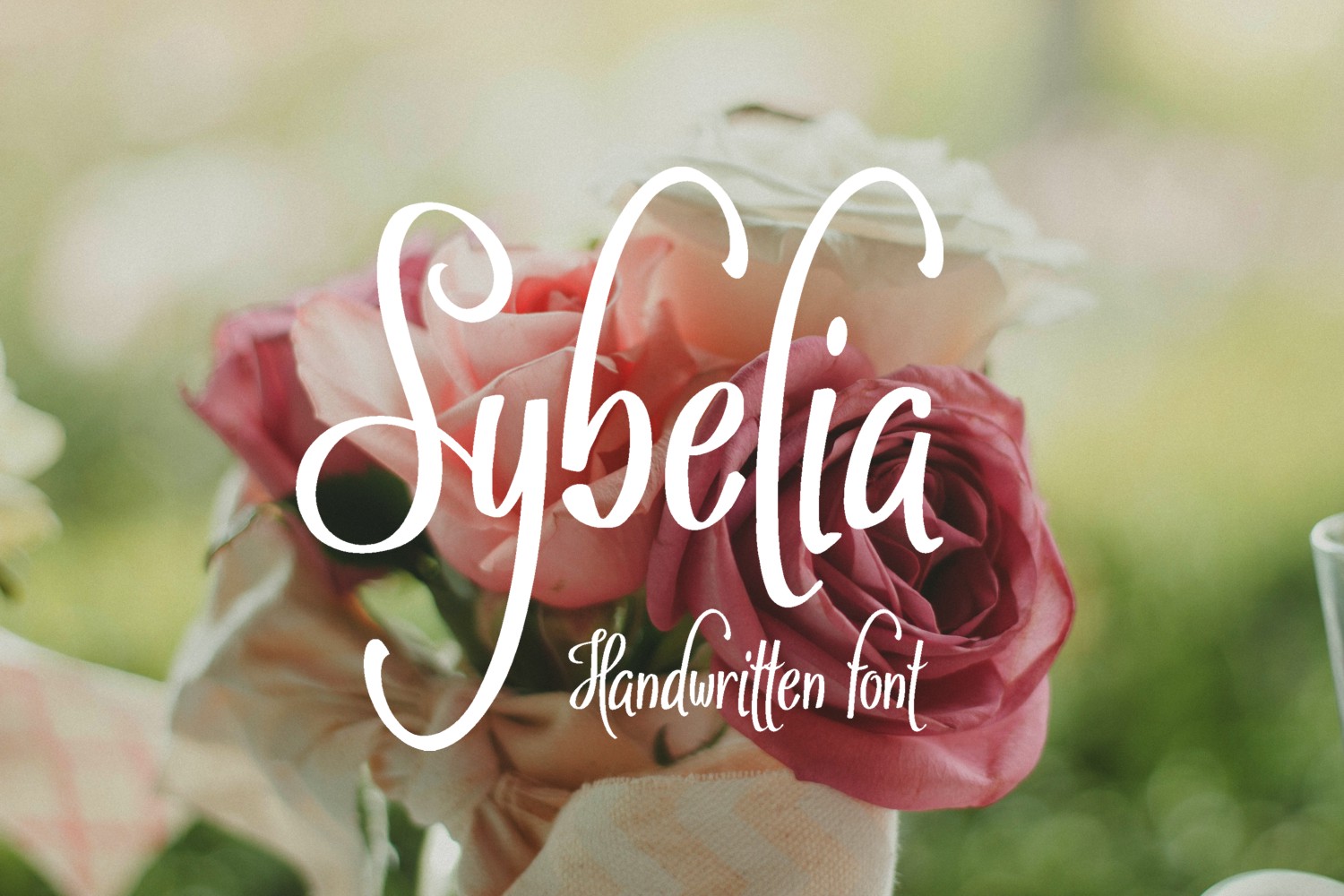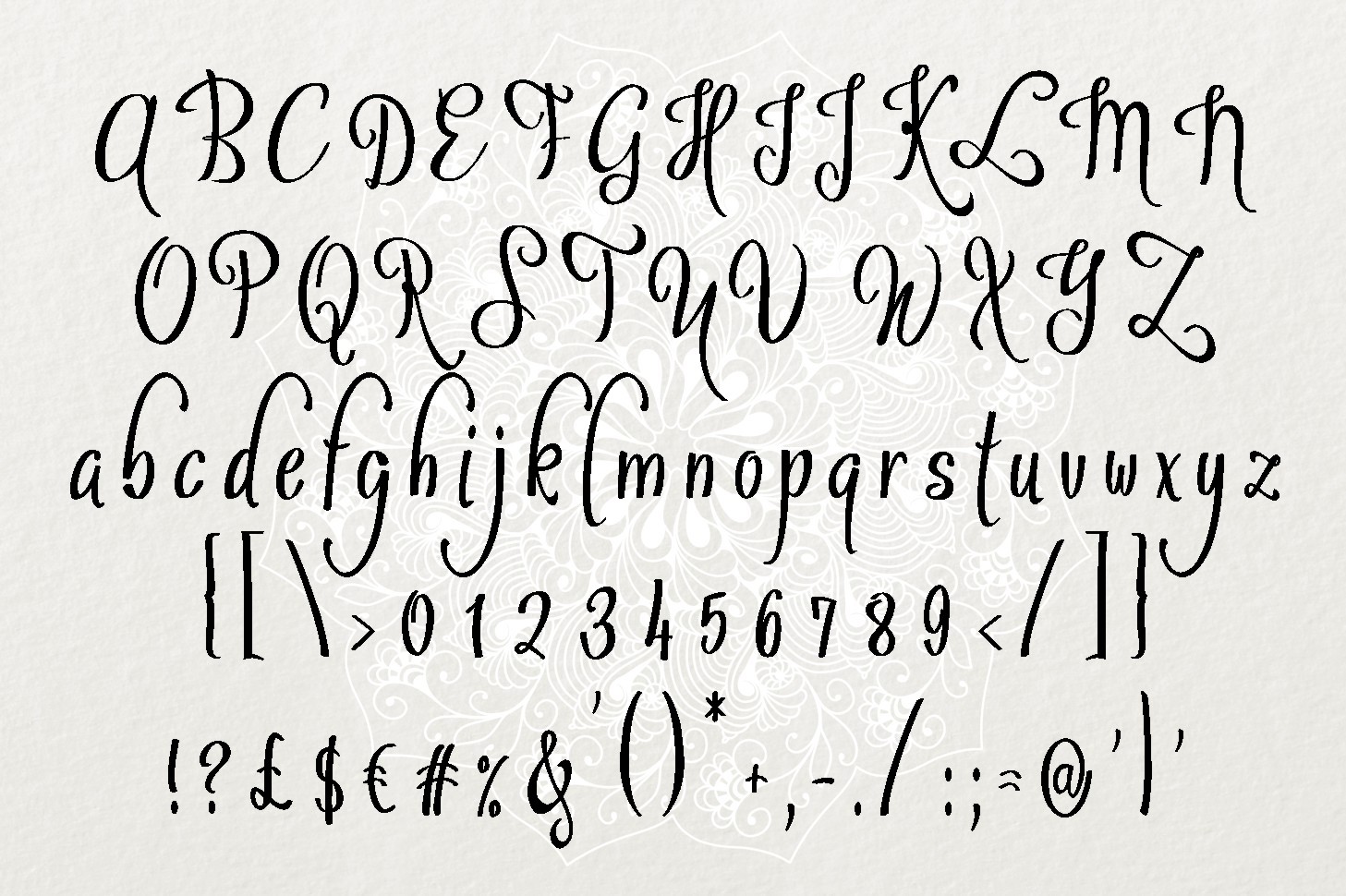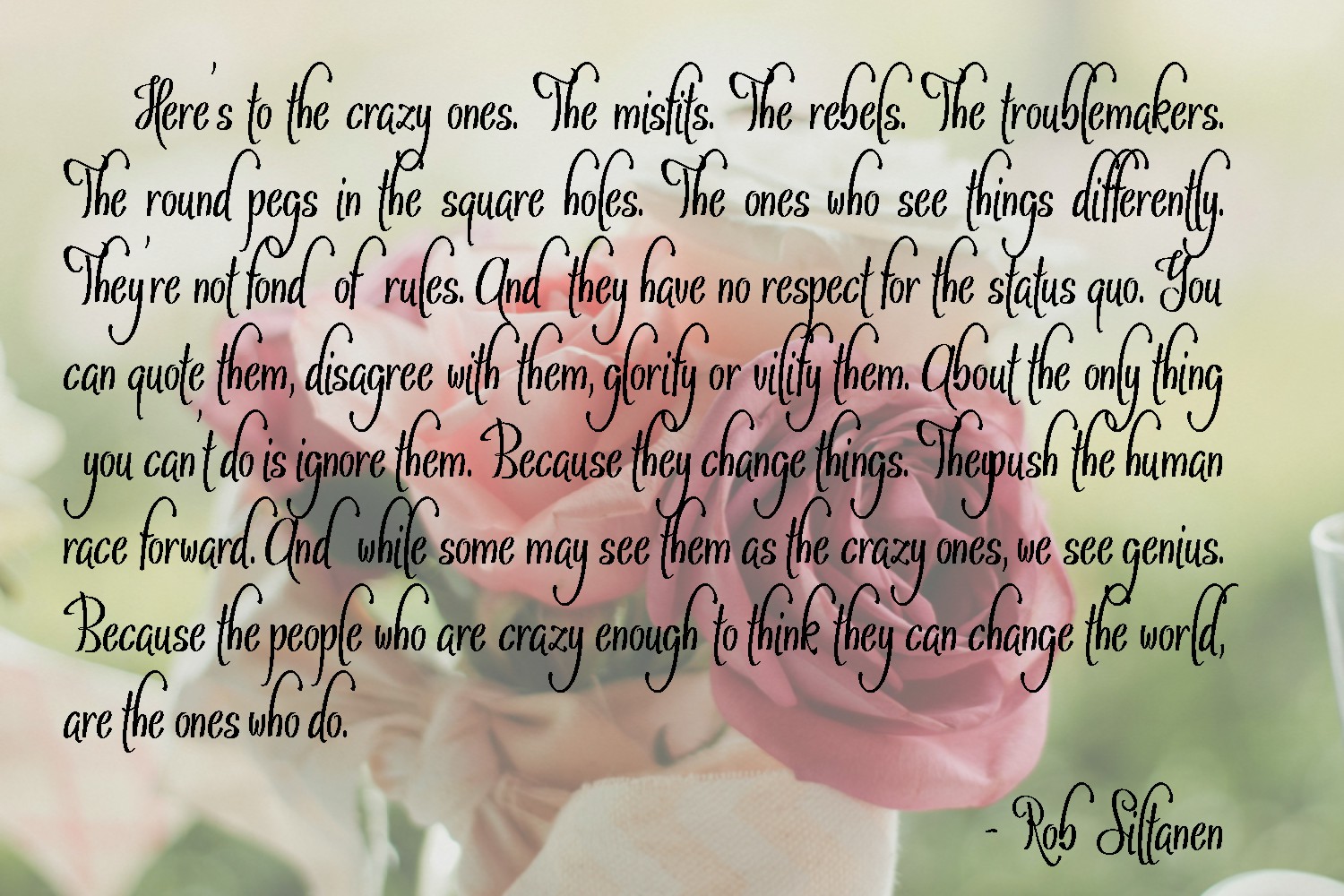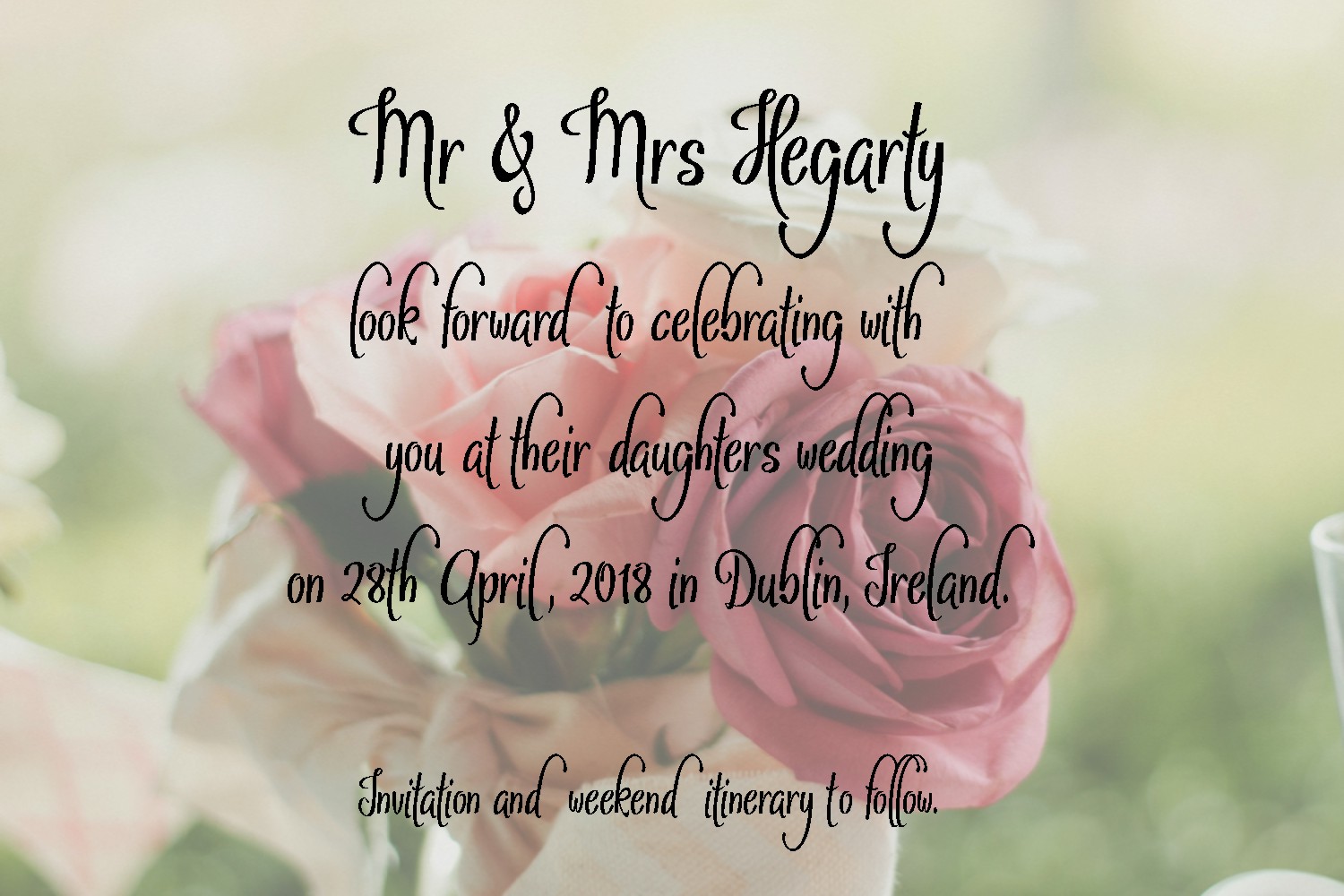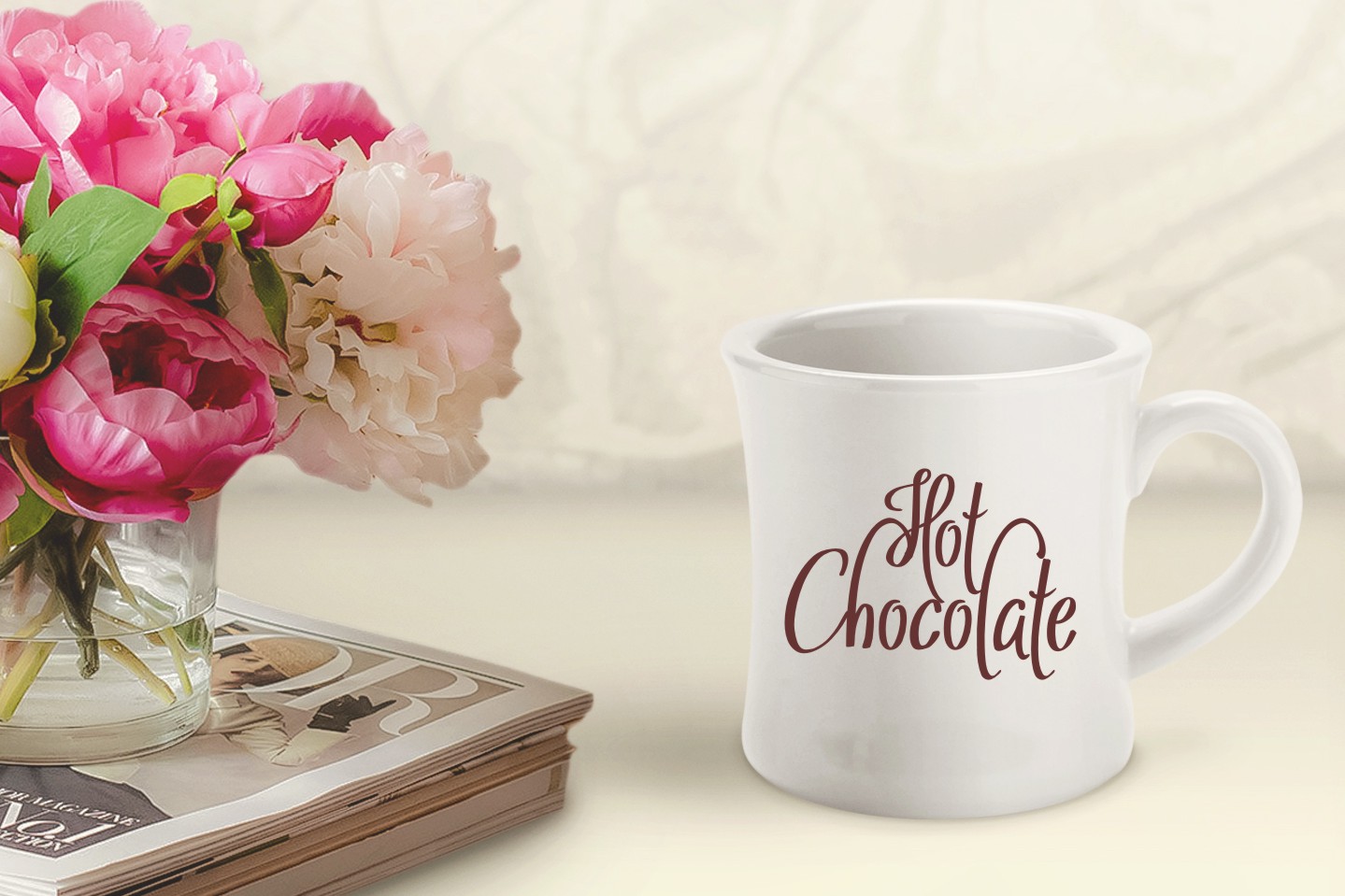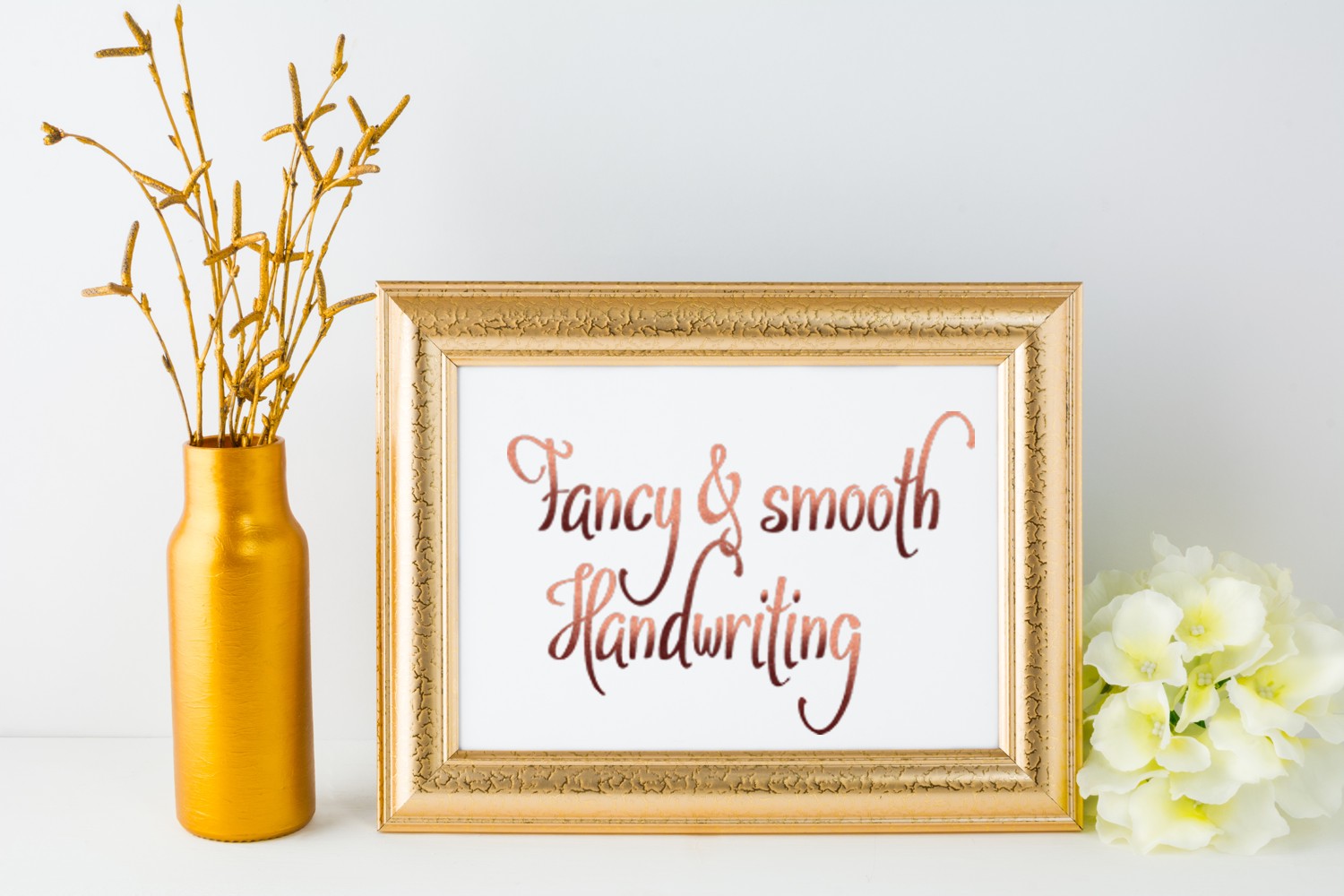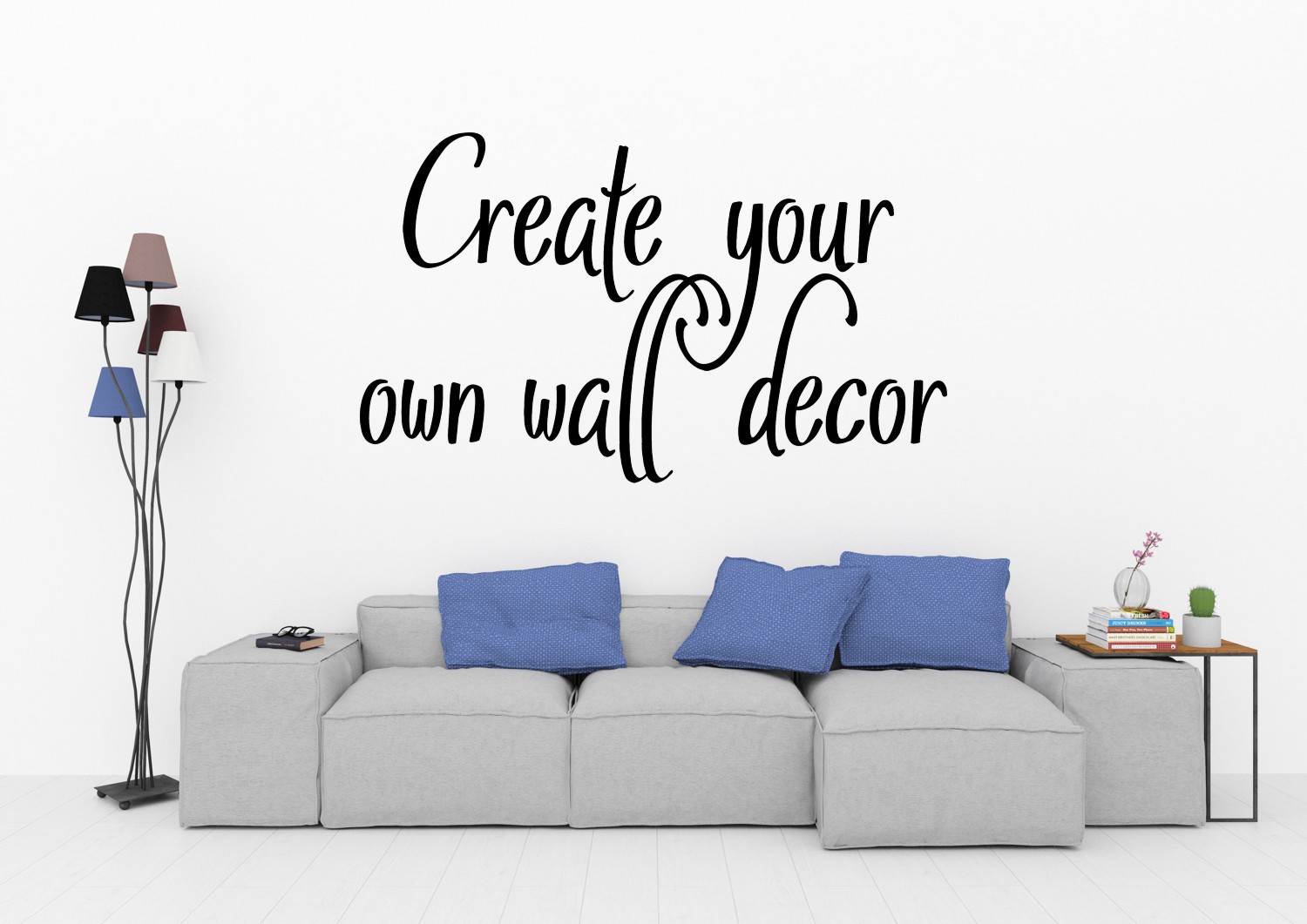
Sybelia Font
About Sybelia Font
Sybelia is a delicate and feminine script style, with beautiful movement and weight. This font is legible and well balanced, making it a great choice for a large number of design styles.